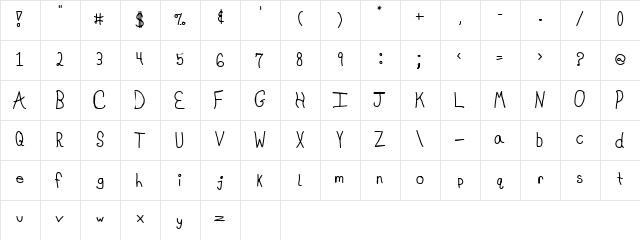
Fontophobic Regular
Design Context for Fontophobic Typeface
Fontophobic is a composed and adaptable typeface that performs quietly and consistently across a wide range of design contexts.